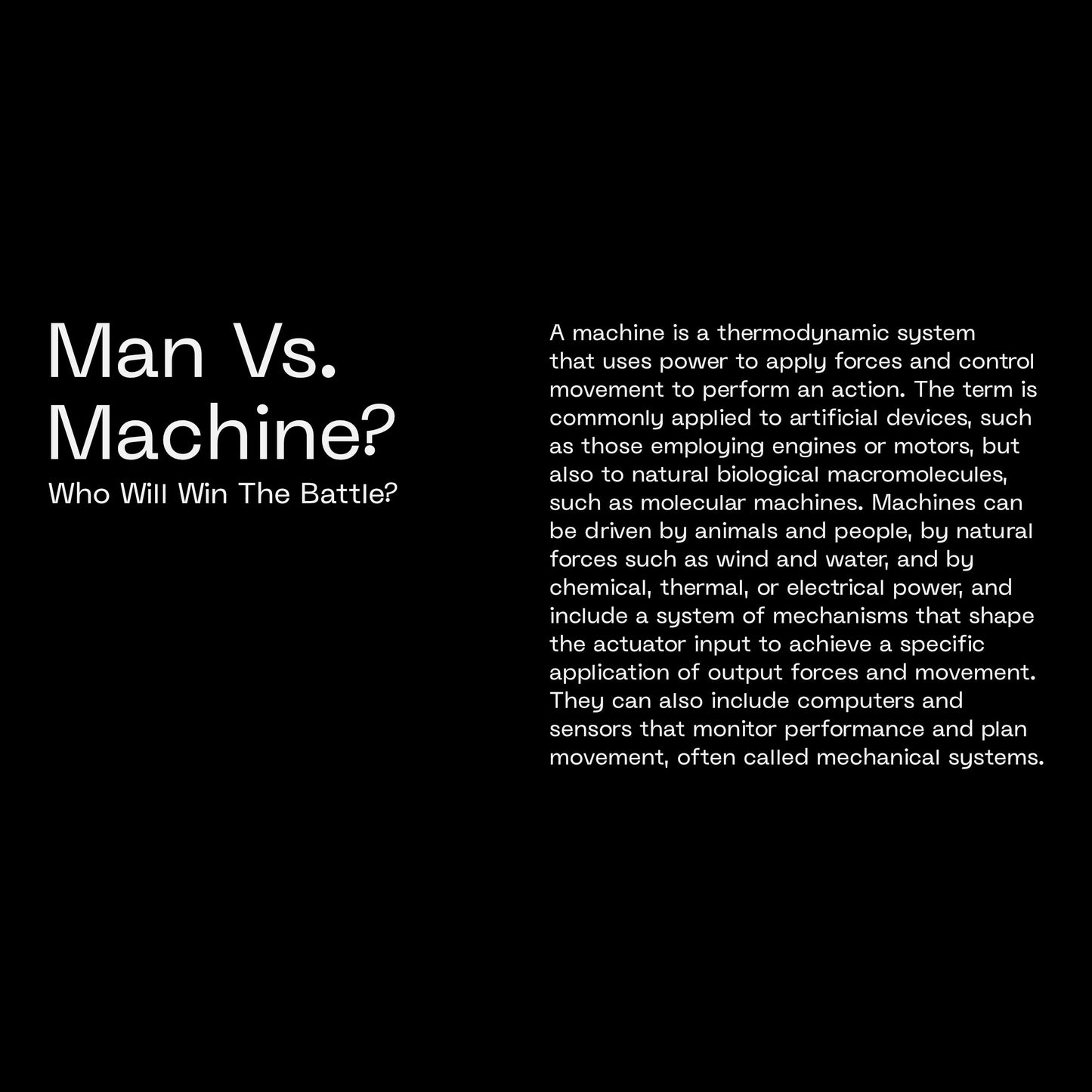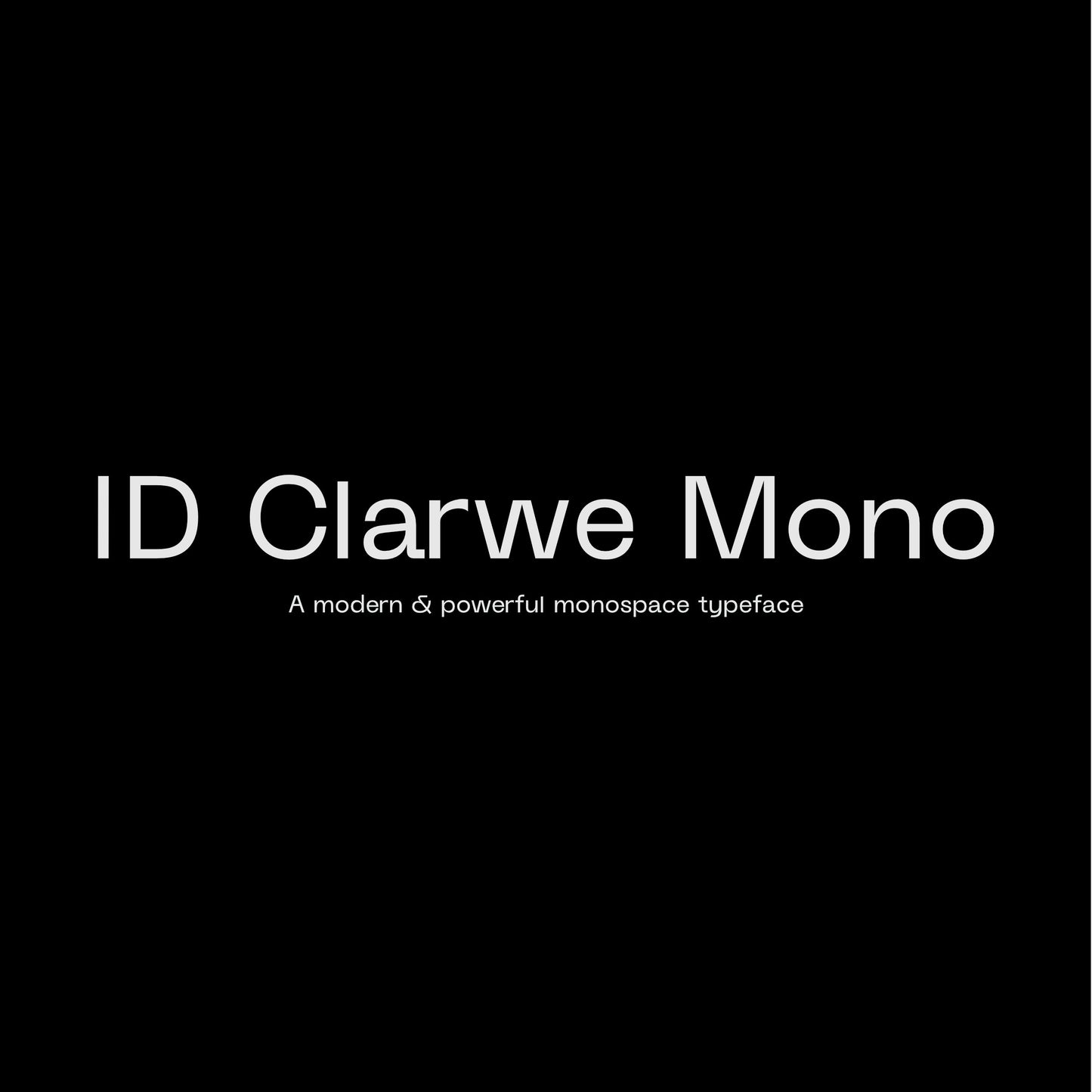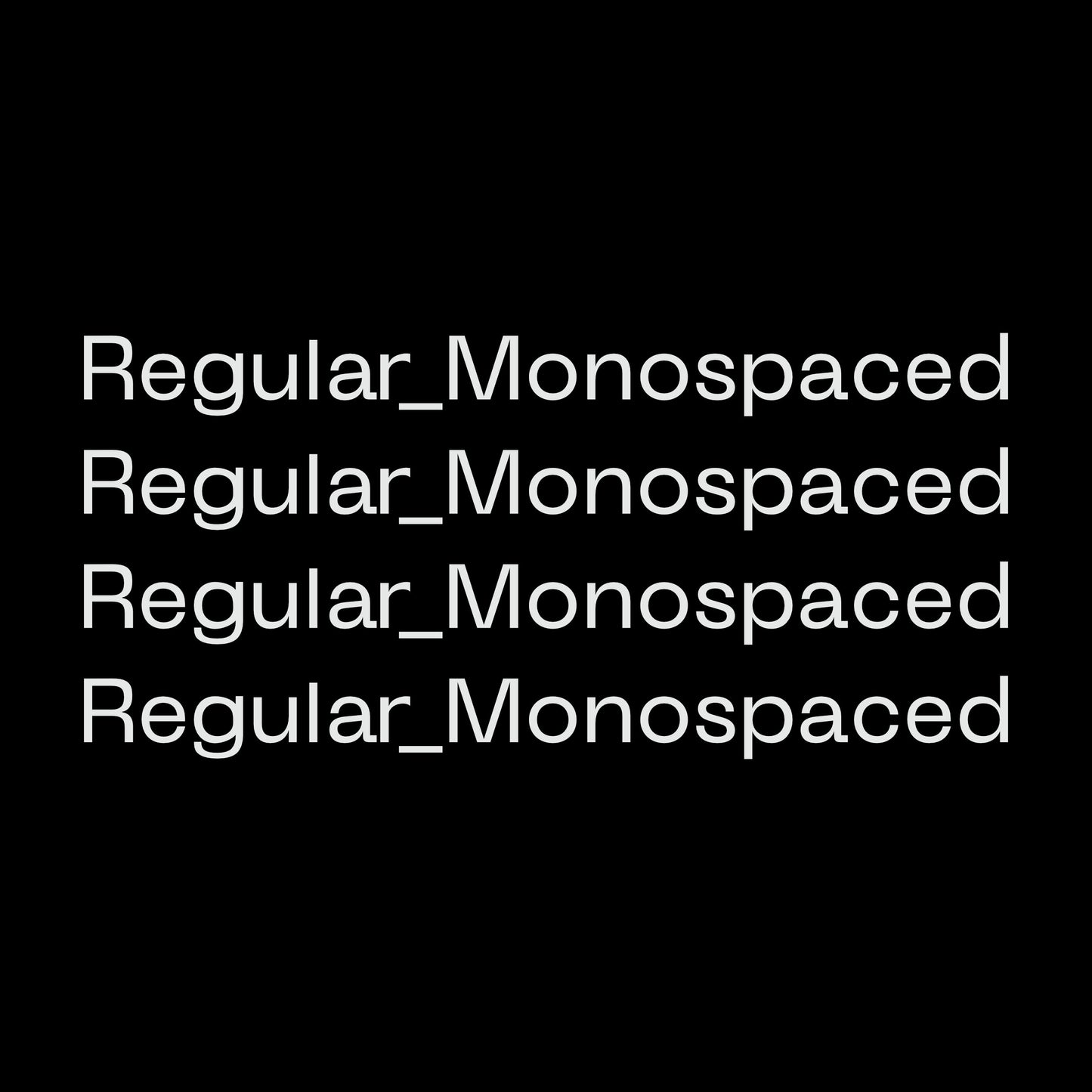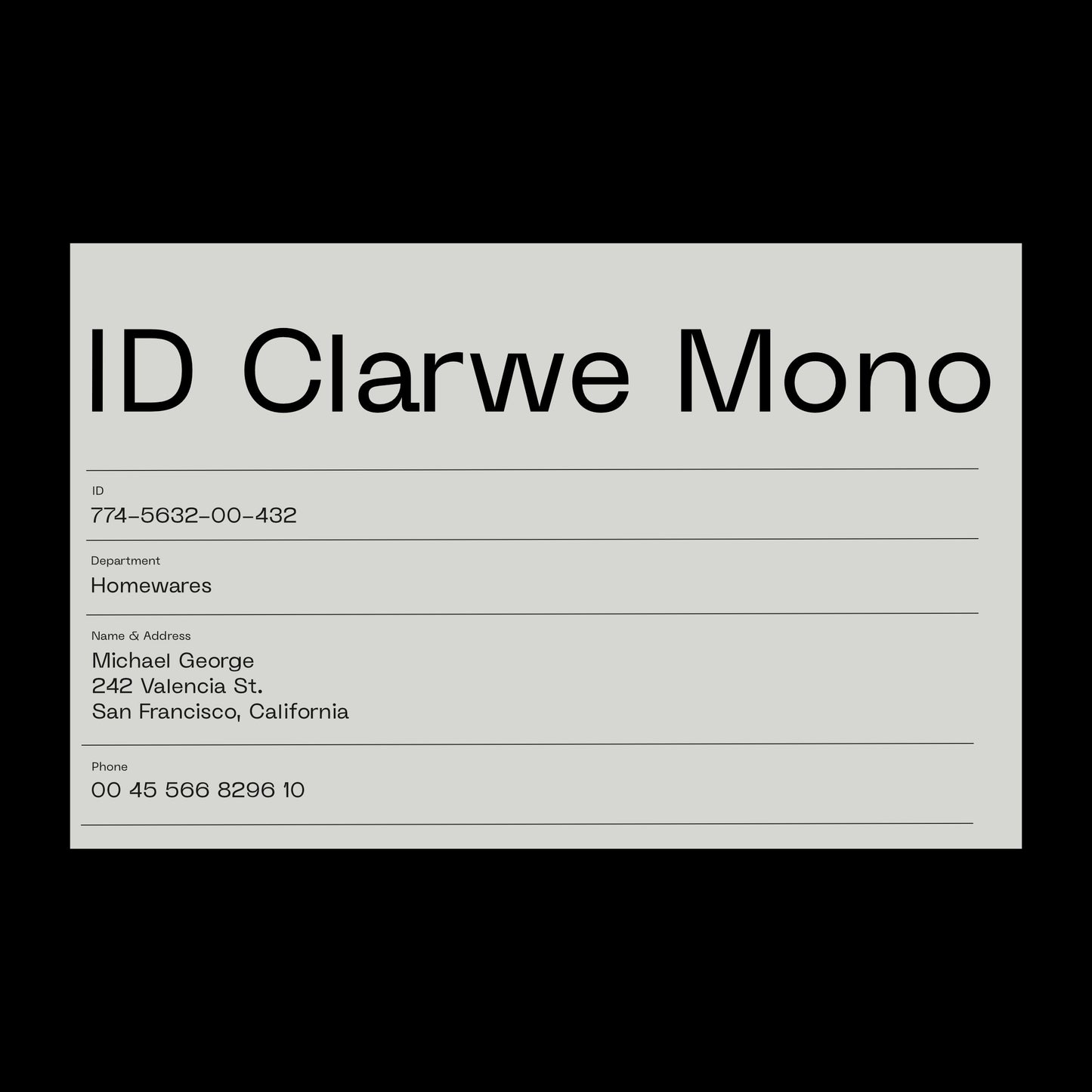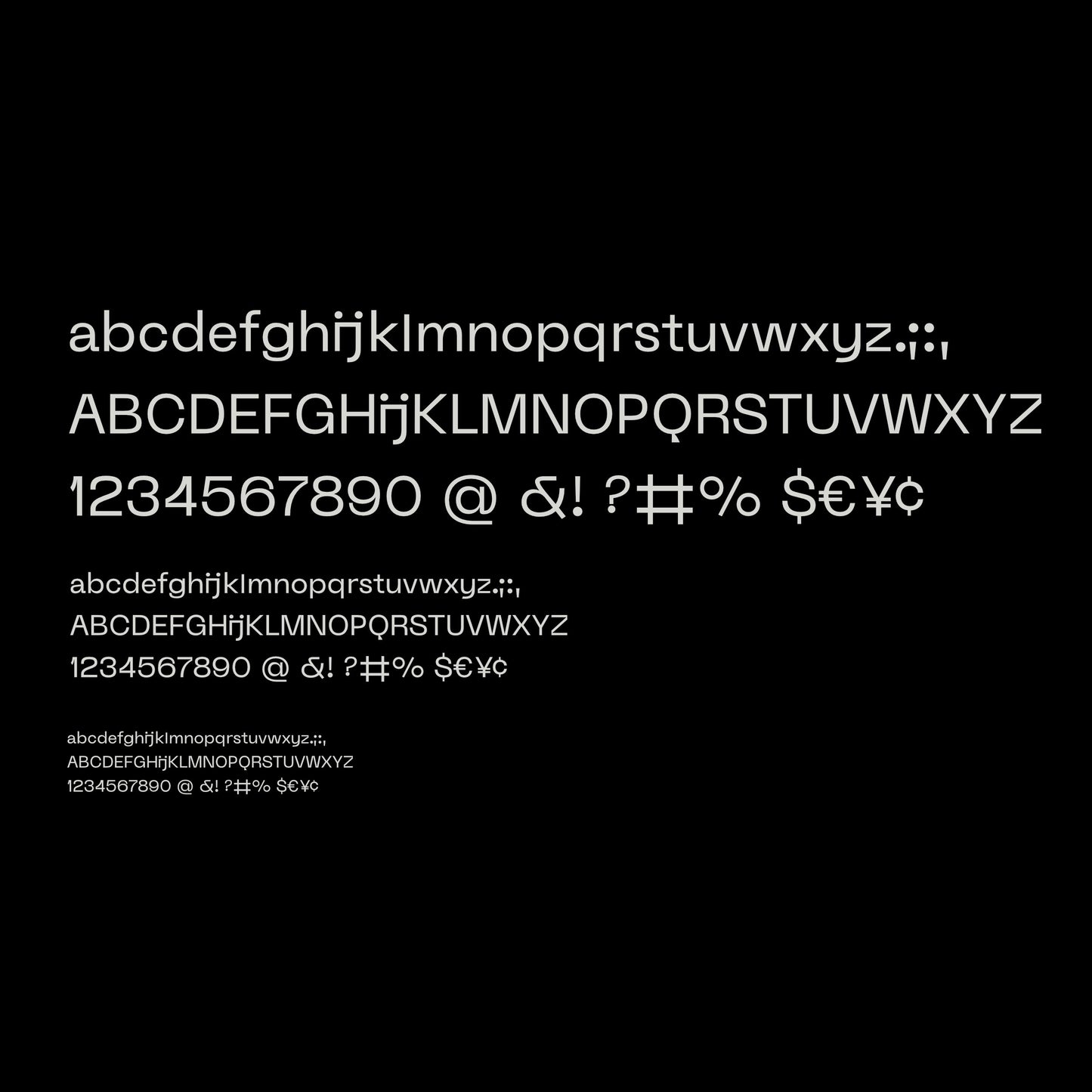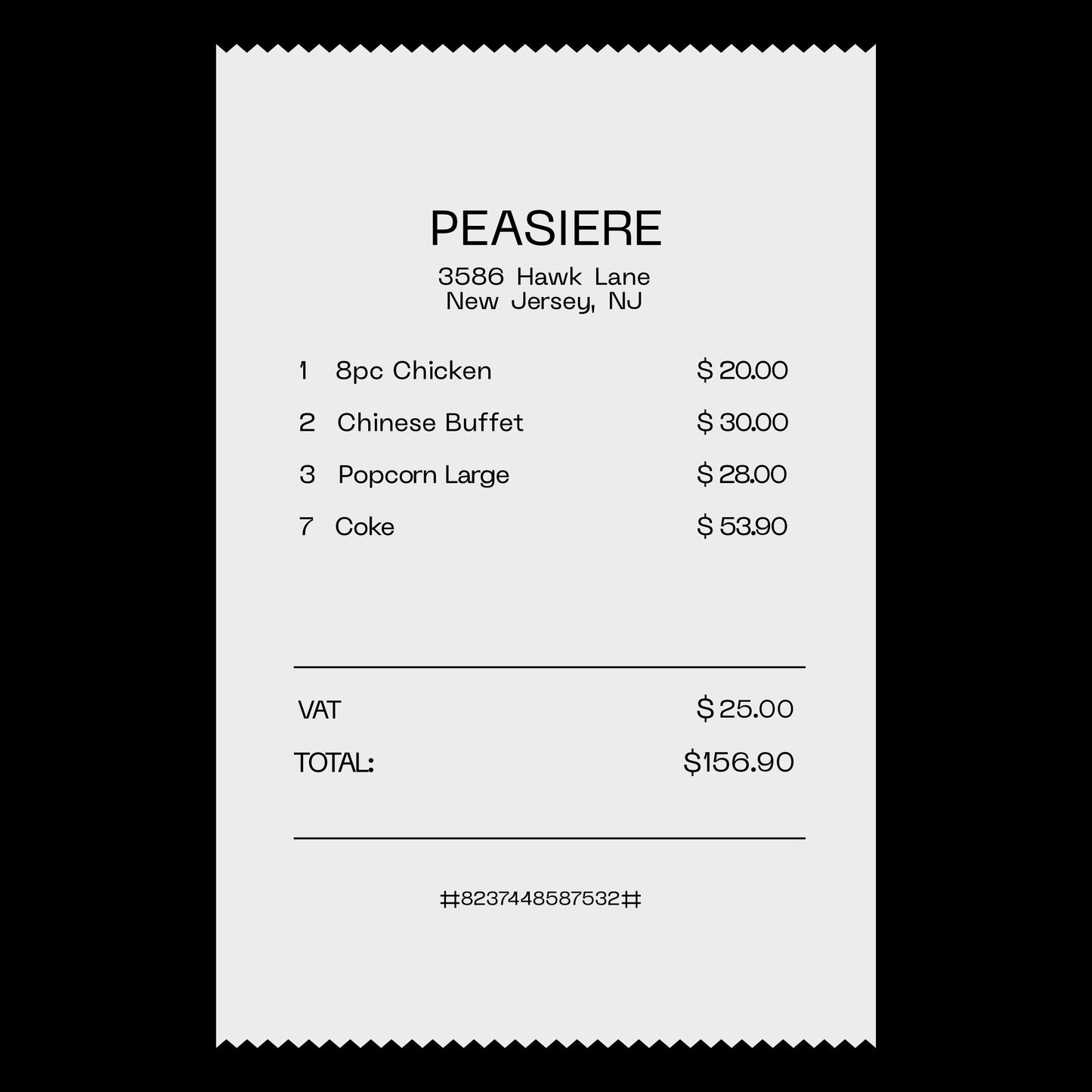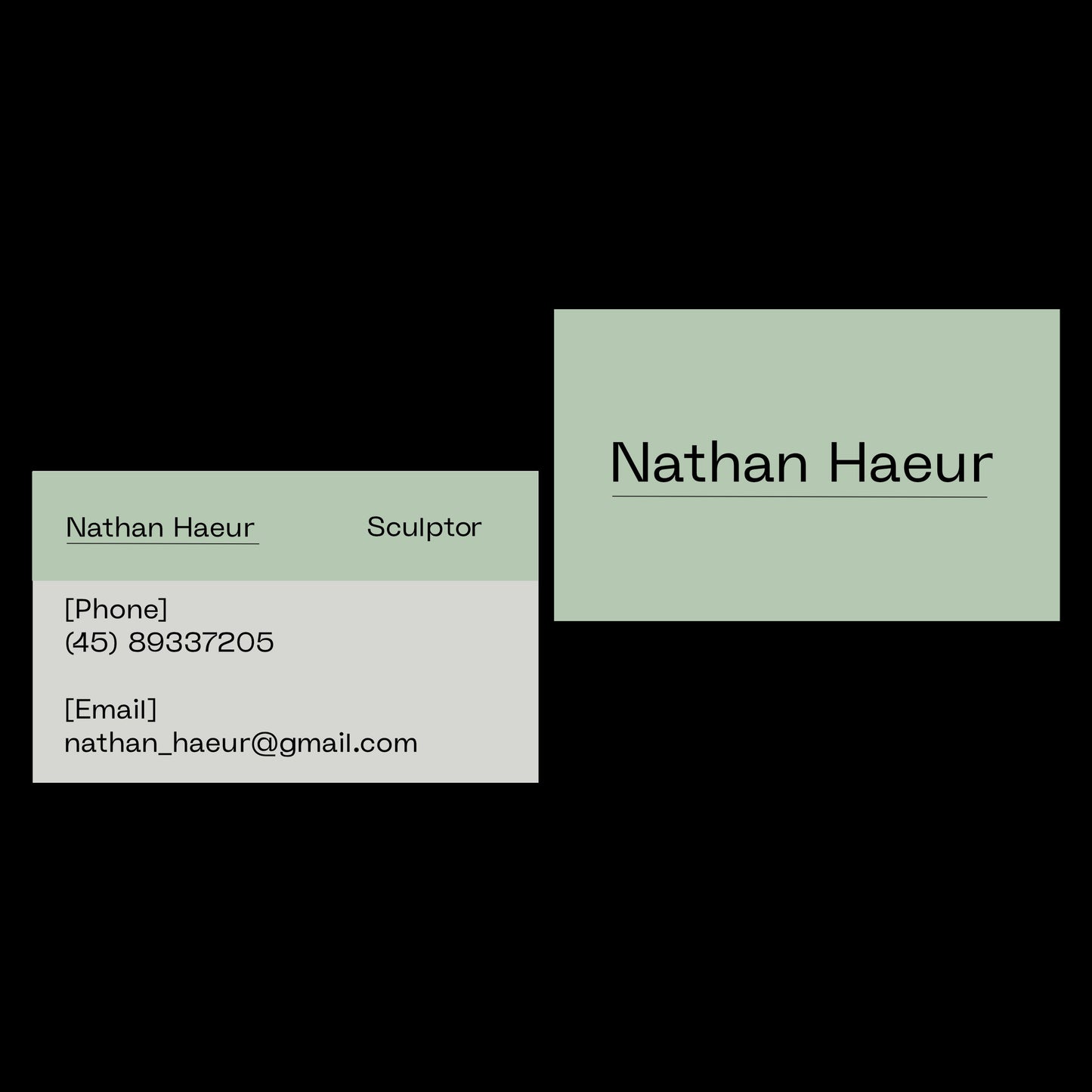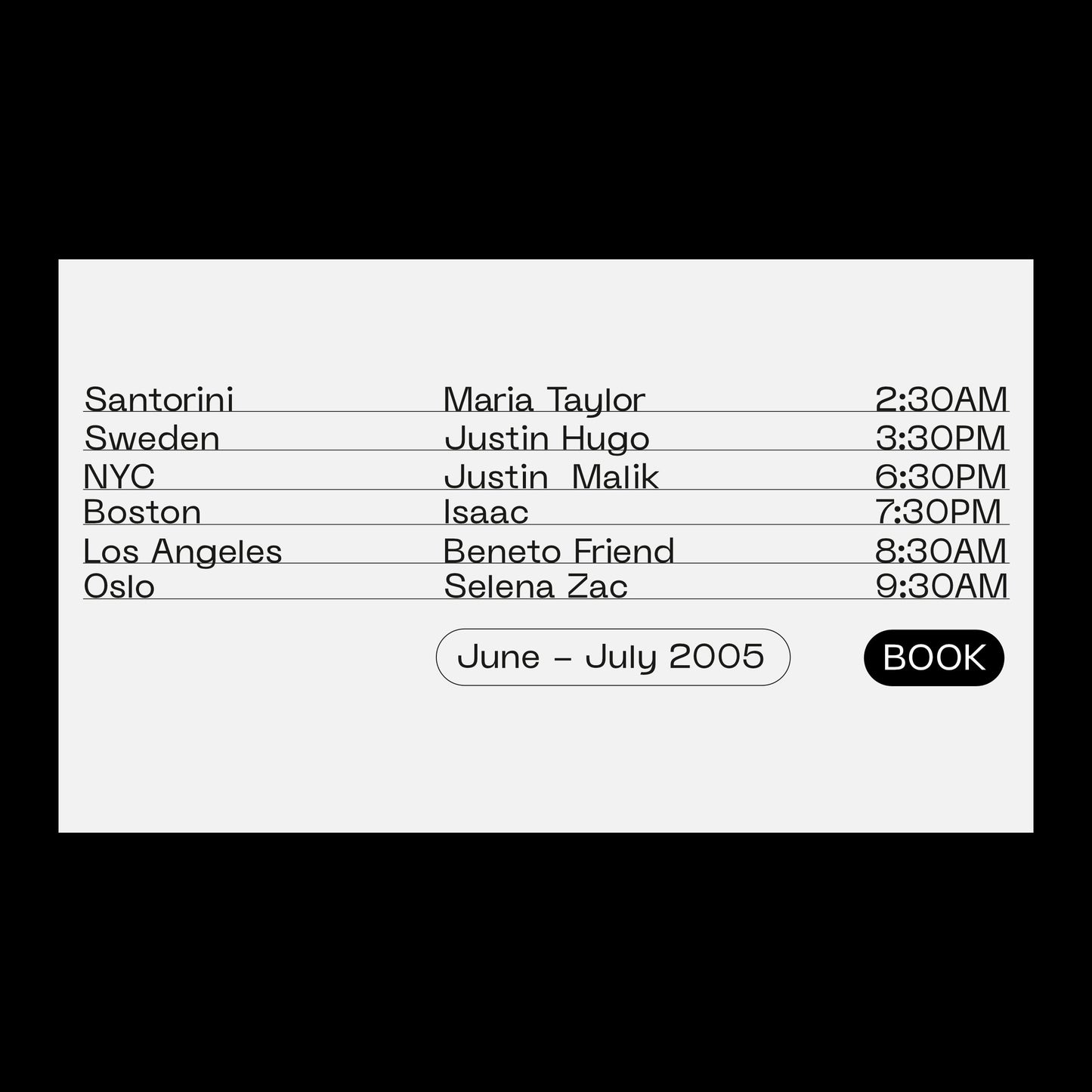
ID Clarwe Mono
Introducing Clarwe Mono is a modern monospace typeface equipped with multilingual support.
— TOTAL GLYPHS: 407
— ALTERNATES
— FRACTIONS & LOCALISED FORMS
— MULTILANGUAGE